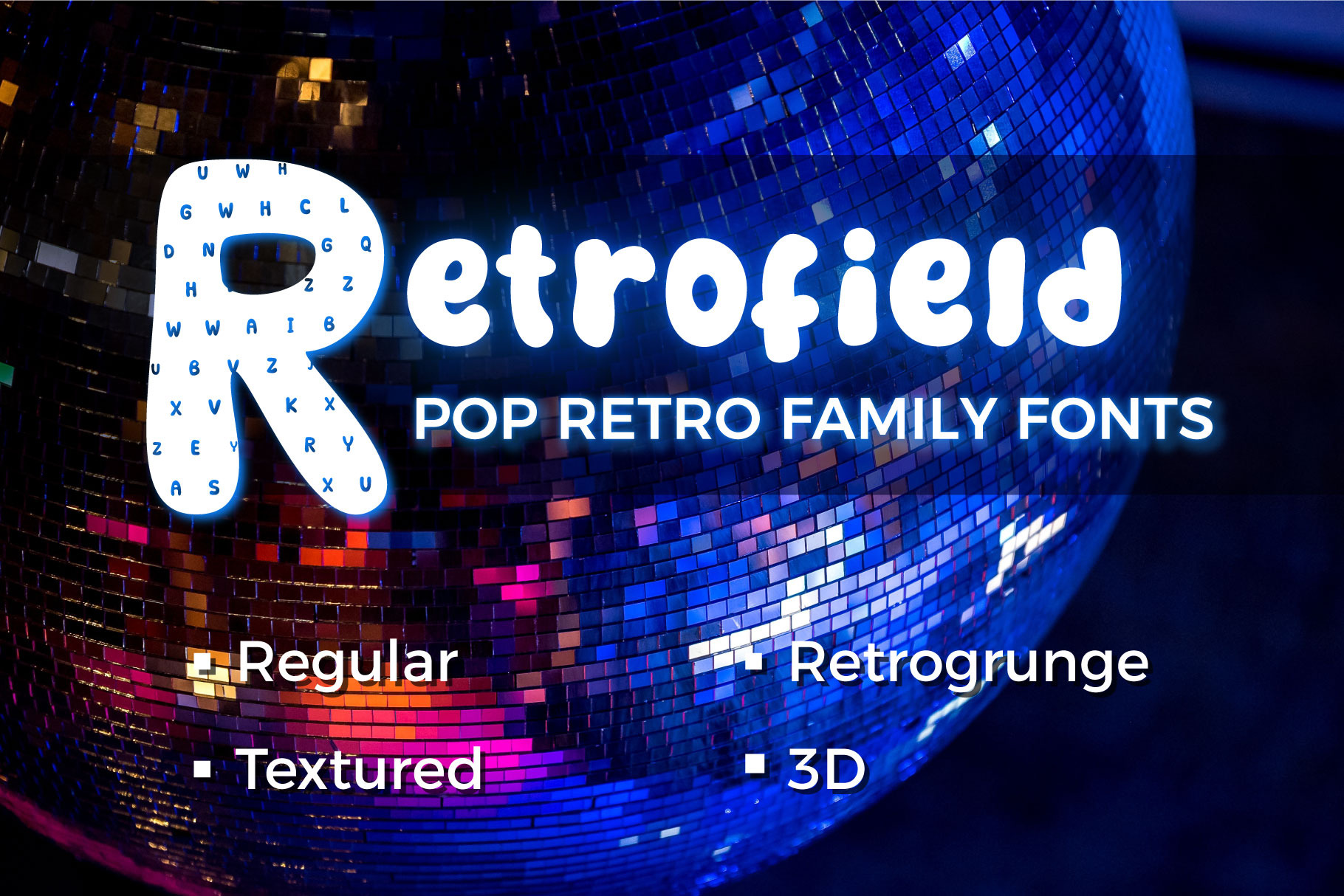
Retrofield - Pop retro family fonts
Please welcome, "RETROFIELD Pop Retro Family Fonts"
As a family fonts, we offer not only one font here. So please let us introduce our four kids here:
- Textured
- Retrogrunge
- 3D